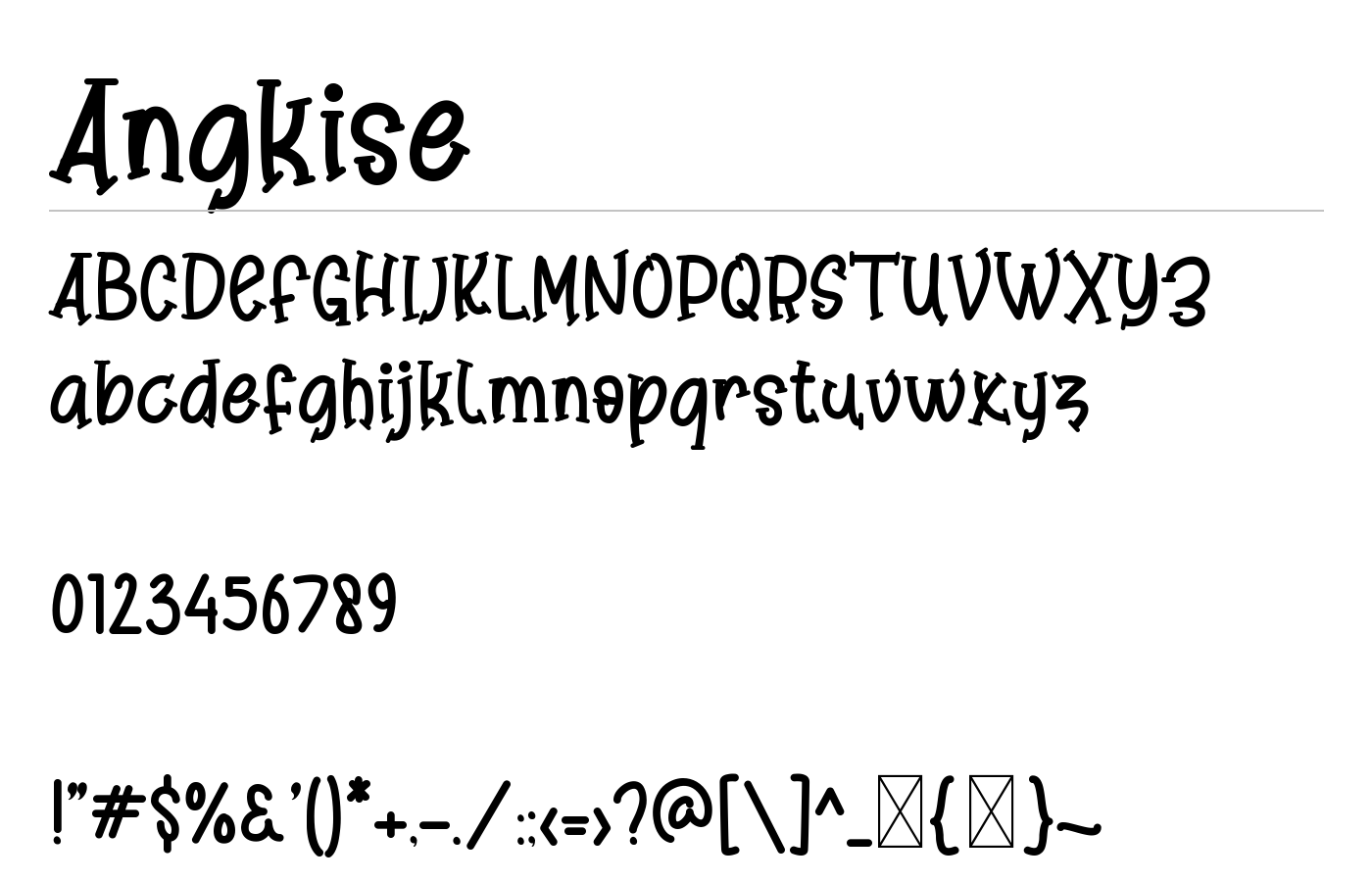
Angkise is a playful and quirky handwritten font featuring irregular strokes and lively letterforms that bring a casual, friendly vibe. Its medium weight with a slightly condensed width, combined with unique character shapes and a relaxed rhythm, makes it perfect for creative projects, informal branding, and fun headlines that need a personal touch. This font works well where approachability and a hand-crafted feel are desired, such as in children's books, casual invitations, and artistic designs.
Angkise Font